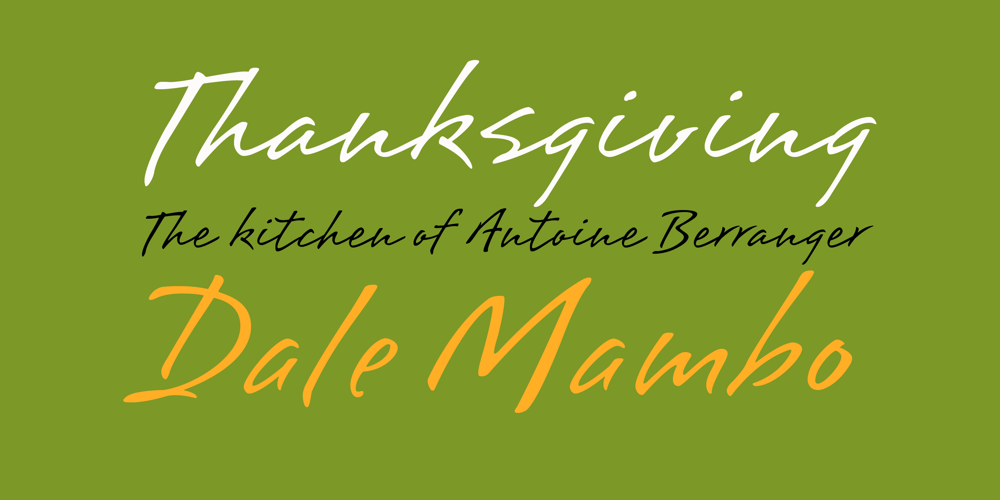
Brisa Pro
Brisa Pro font
Brisa Pro Font Family was designed by Alejandro Paul, Angel Koziupa and published by Sudtipos. Brisa Pro contains 1 styles and family package options. The dynamic design duo of Koziupa drawing and Paul digitizing strikes again. This time they cover the space from light nonchalance to eerie darkness, and everything in between. Quicker than lightning and just as poignant, Brisa Pro shows unprecedented determination, presence of spirit, and finality of confidence. Brisa Pro is the teenager leaving home, the lover leaving one last note on the refrigerator door, the prophet announcing the imminence of doom, the rebel scratching anger on the wall, the bereaved clawing torment into life, and the bogeyman dropping a line to keep your eyes wide open through the night.